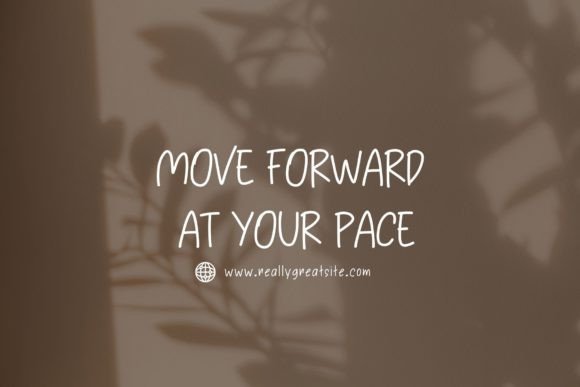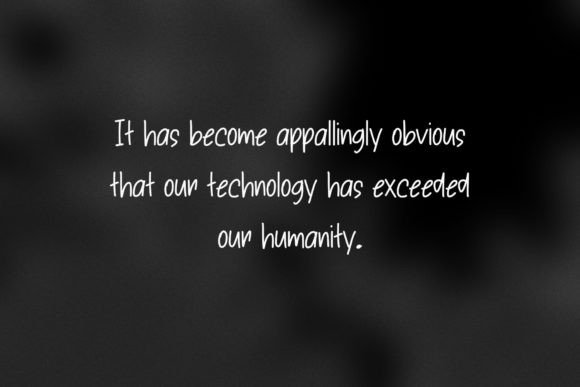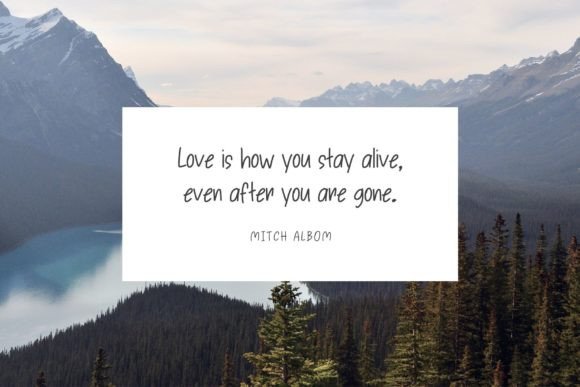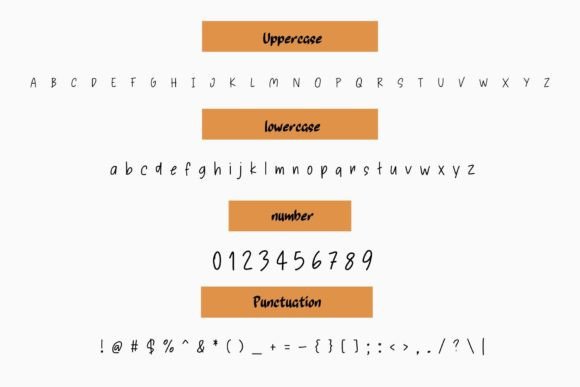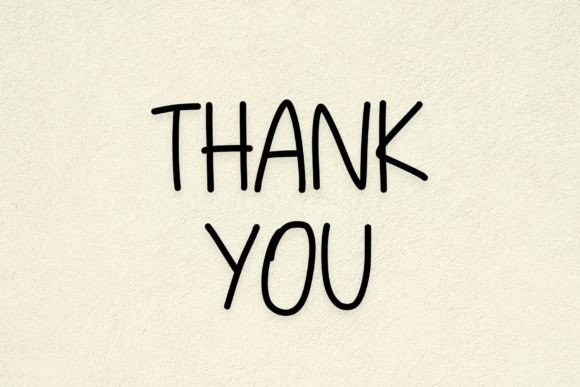
First Impressions: A Cute Handwritten Display Font
Giselle is a cute handwritten display font that embodies playfulness and authenticity. It’s the perfect choice for all your favorite projects, such as blog posts, logos, branding, ads, invitations, greeting cards, planners, photo albums, decorations, and much more. Add it to any of your designs, and enjoy the results!
- ✨ Playful and authentic vibe that adds a personal touch to any design
- ✅ Highly legible, even at smaller sizes
- 💫 Beautifully crafted with attention to detail and a clear sense of style
- 🎨 Versatile and adaptable to various design contexts
While Giselle Font is an excellent choice for many projects, there are a few minor considerations to keep in mind:
- ⚠️ May not be the best fit for very formal or corporate designs, as it leans towards a more casual and playful aesthetic
- 🤔 Limited availability of certain OpenType features, which might be a consideration for some users
Exploring Alternatives: Similar Fonts to Giselle
If you like Giselle Font, you might also enjoy the following similar fonts:
- Lobster: A elegant, cursive script font with a sophisticated feel
- Pacifico: A beautiful, handwritten font with a relaxed, beachy vibe
- Great Vibes: A fun, energetic script font with a playful personality
- Carolyna Pro: A elegant, handwritten font with a classic, sophisticated feel
The Story Behind Giselle Font
Giselle Font was designed with the intention of creating a playful, yet authentic handwritten font that could be used in a variety of creative contexts. The designer aimed to craft a font that would add a personal touch to designs, while still being highly legible and versatile.
| Font Name | Giselle Font |
| Author | Brown Cupple Fonts |
Q: What is Giselle Font best suited for?
A: Giselle Font is best suited for designs that require a playful, yet authentic handwritten font, such as blog posts, logos, branding, ads, invitations, greeting cards, planners, photo albums, and decorations.
Q: Is Giselle Font available in different languages?
A: Yes, Giselle Font supports multiple languages, including English, Spanish, French, and more.